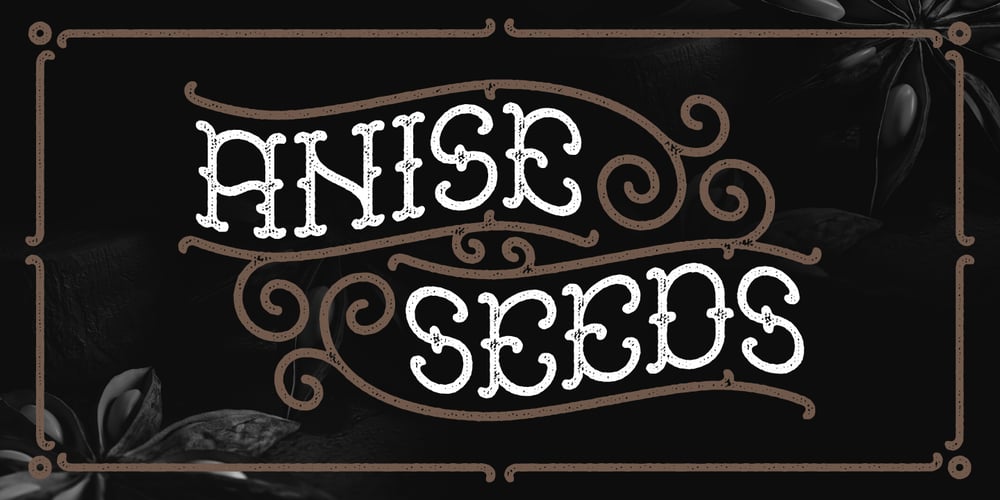
Anise Seeds Font Family was designed by Gleb Guralnyk and published by Gleb Guralnyk. Anise Seeds contains 2 styles and family package options. This vintage font set named Anise Seeds includes two versions — textured rough and smooth clean. This capital decorative typeface is perfect for label design and lettering compositions. West European languages support is available.Thank you and have fun!